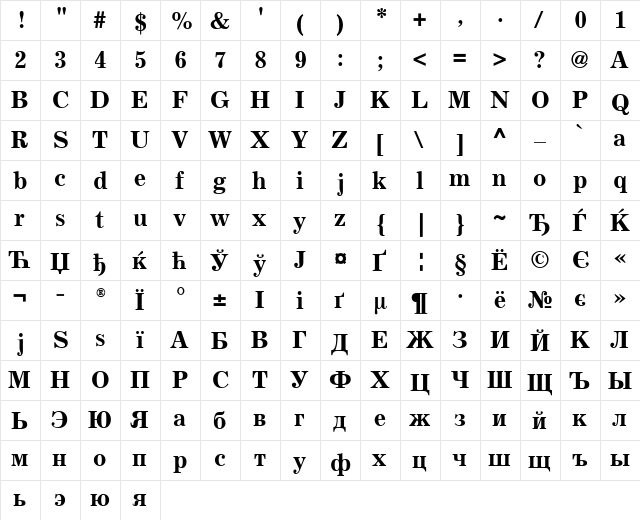
ExcelsiorCyr Upright Bold Font Preview
ExcelsiorCyr Upright Bold
Design Context for ExcelsiorCyr Upright Typeface
ExcelsiorCyr Upright is a composed and adaptable typeface that performs quietly and consistently across a wide range of design contexts. The heavy weight commands attention and anchors typographic hierarchies.